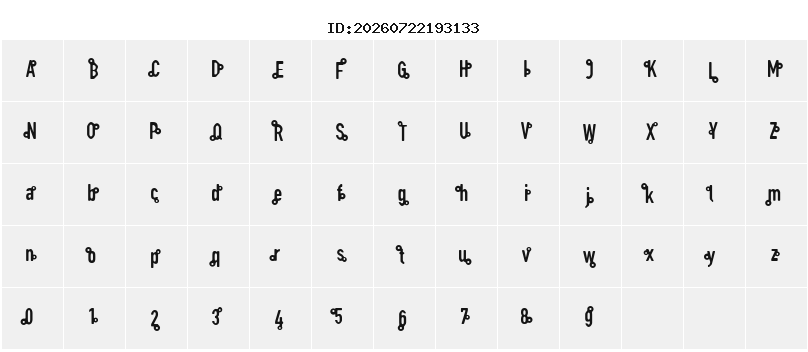
mole Preview
• Font Name: mole
• Font ID: Macromedia Fontographer 4.1.2 mole
• Full Font Name: mole
• Version: Macromedia Fontographer 4.1.2 16.05.2001
• PostScript Name: Mole
About mole.ttf
mole.ttf is a modern, elegant sans-serif font designed for ultimate readability and visual harmony. Perfect for branding, headlines, web design, and print materials.